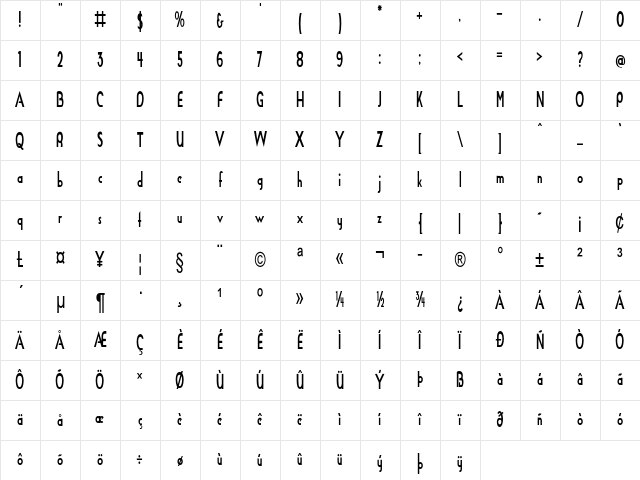
Dawdle Condensed Regular
Style: Condensed Regular
Dawdle Family
Dawdle Condensed Regular
Design Context for Dawdle
Dawdle is a composed and adaptable typeface that performs quietly and consistently across a wide range of design contexts. Its narrow stance lets it pack a punch even in space-constrained designs.